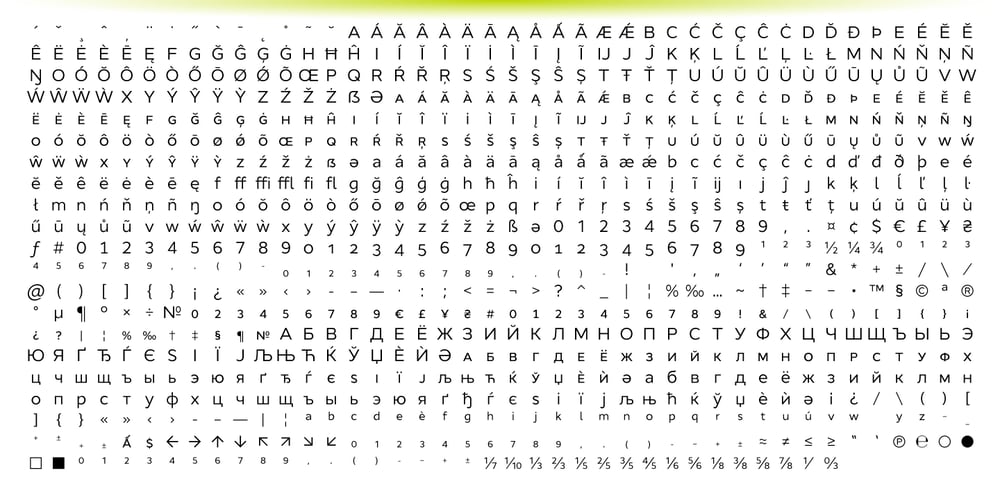
Cyntho Next
Cyntho Next font
Cyntho Next Font Family was designed by Andriy Konstantynov and published by Mint Type. Cyntho Next contains 16 styles and family package options. Cyntho Next is a totally reworked typeface based on our previous bestseller Cyntho Pro. It also has a slab-serif counterpart – Cyntho Next Slab. Cyntho Next is a modern geometric sans based on a hybrid waterdrop-like shape with eight weights varying from Thin to Black and featuring Cyrillic.